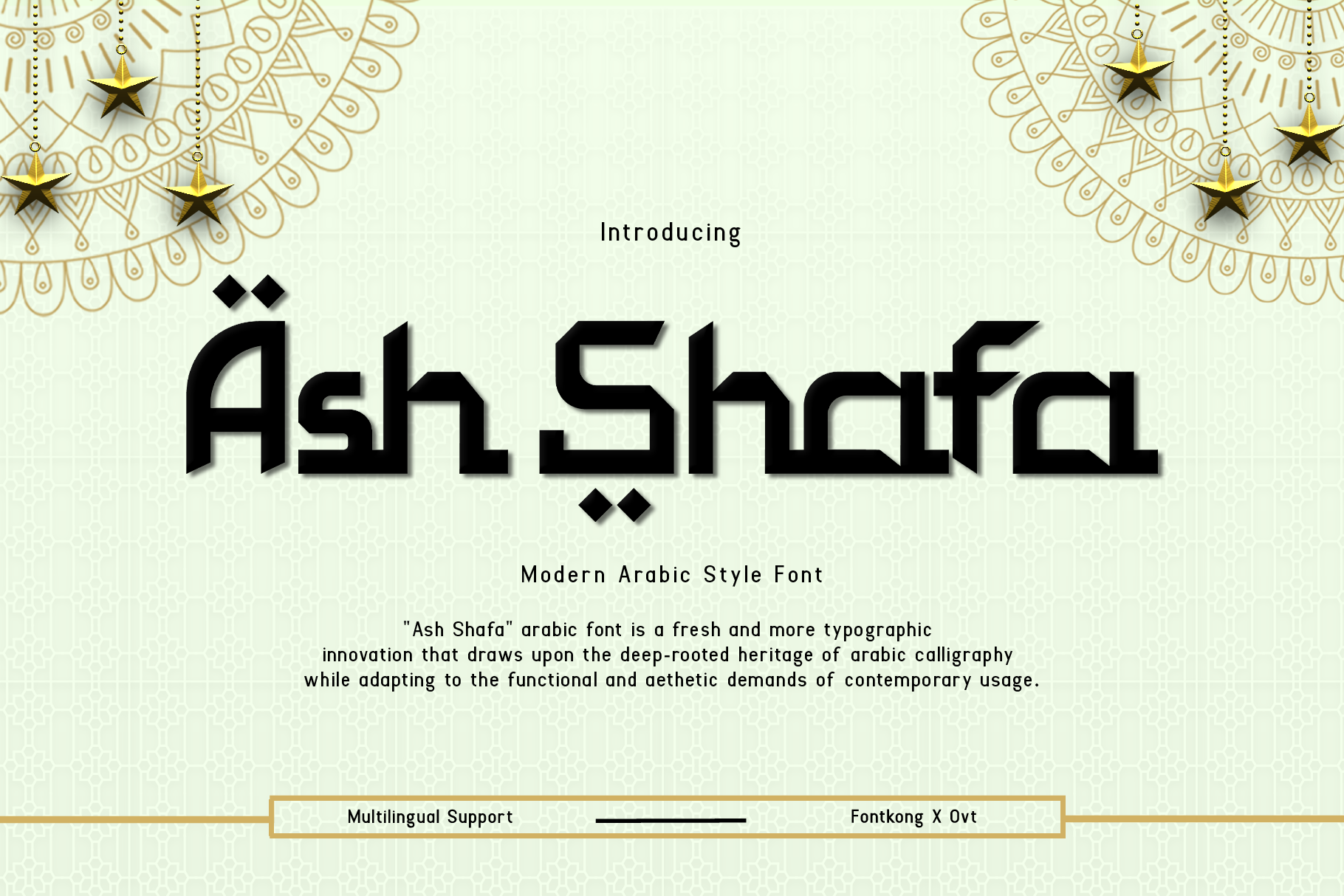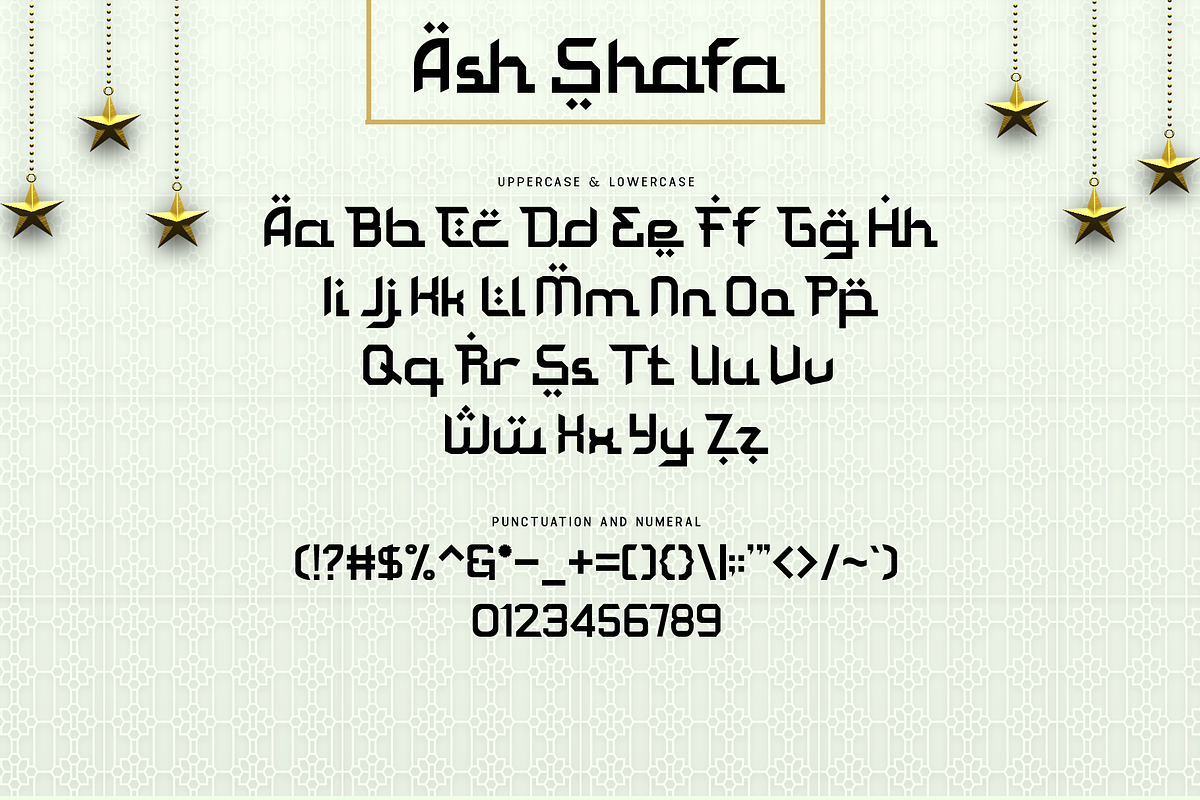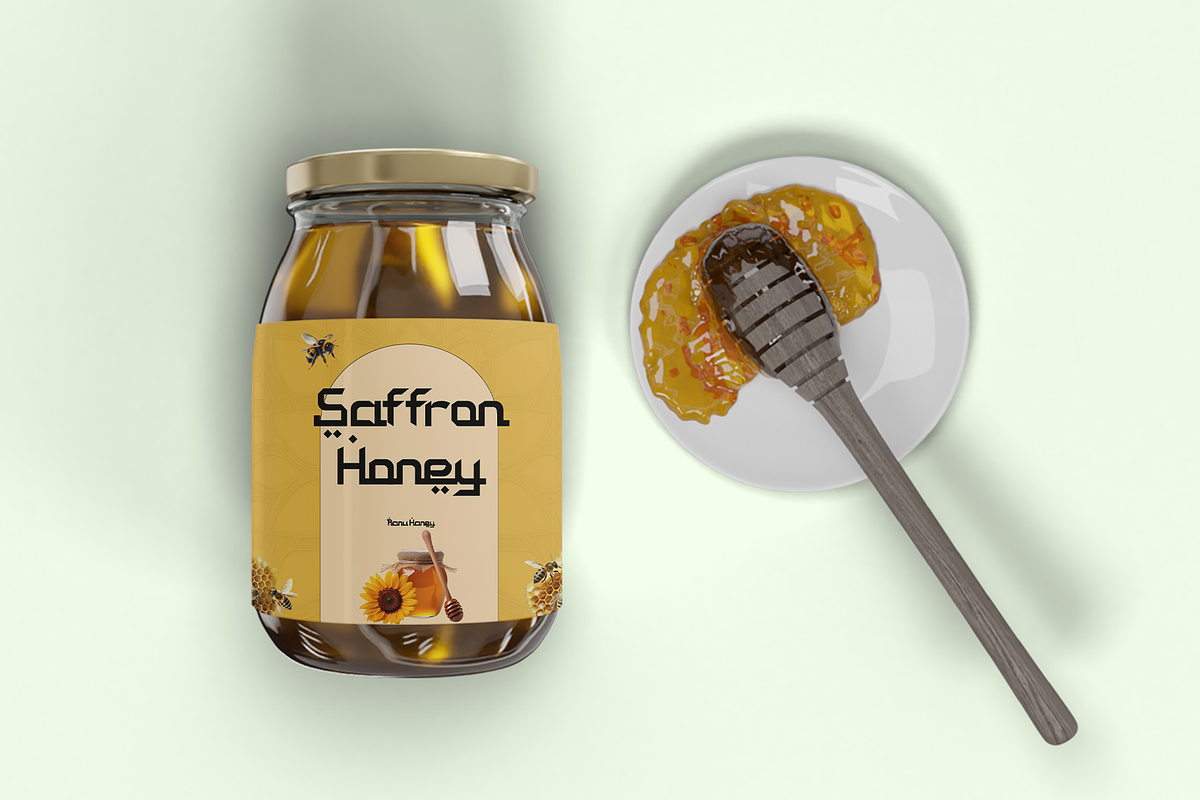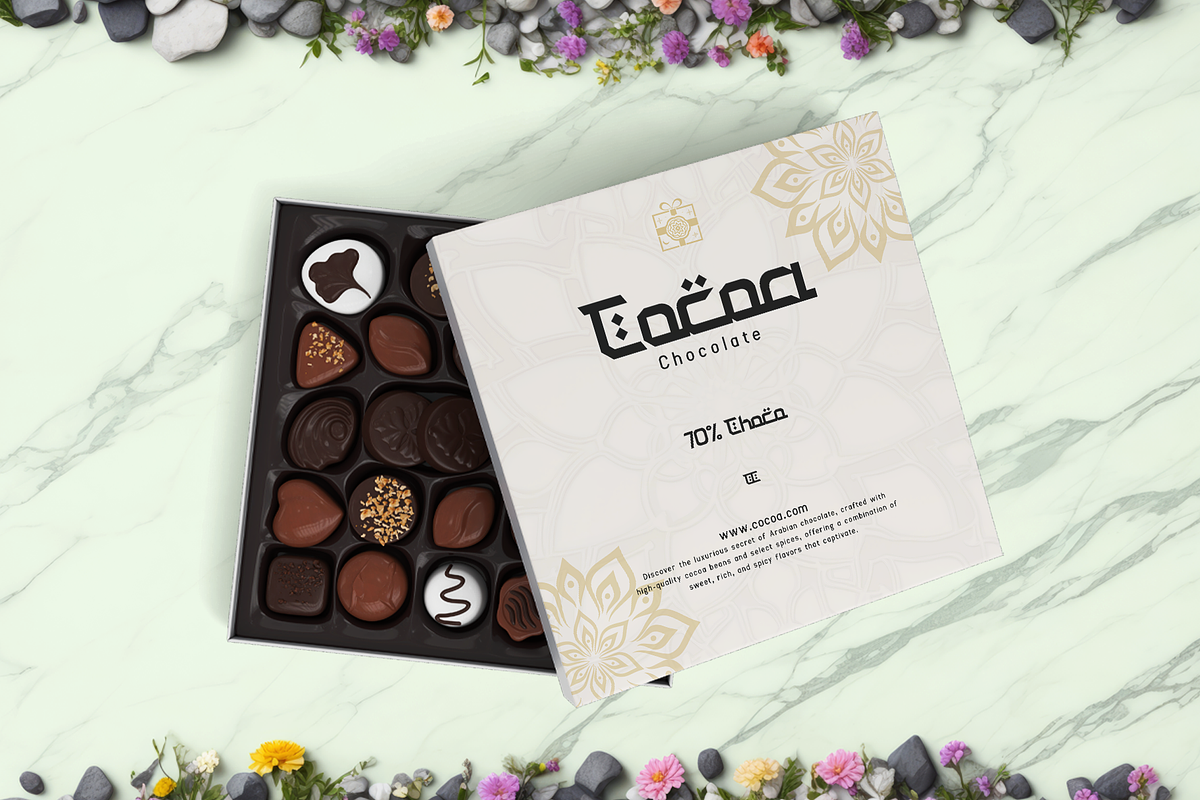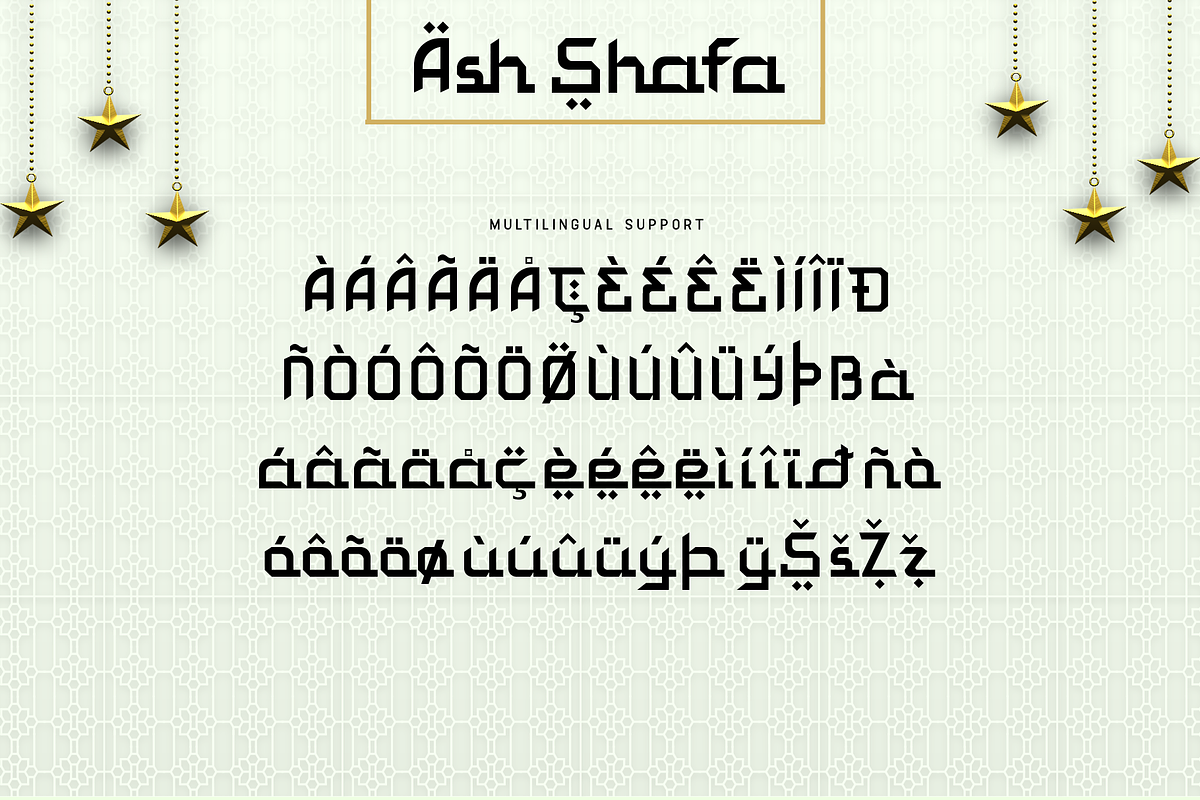
Ash Shafa – Modern Arabic Style Font
Ash Shafa – A Modern Arabic Style Font
Ash Shafa is a contemporary Arabic-style font that blends tradition with modern aesthetics. Featuring elegant curves and artistic letterforms inspired by Arabic calligraphy, this font is ideal for cultural projects, branding, logos, posters, packaging, and social media graphics. Whether for formal events or modern designs, Ash Shafa adds a touch of sophistication and authenticity to your work.
This versatile typeface supports both decorative and functional use, making it perfect for projects that require a blend of beauty and readability. Its graceful yet modern approach ensures your message stands out, whether in print or digital applications.
Add a layer of elegance and cultural depth with Ash Shaf a font that bridges the gap between tradition and innovation.